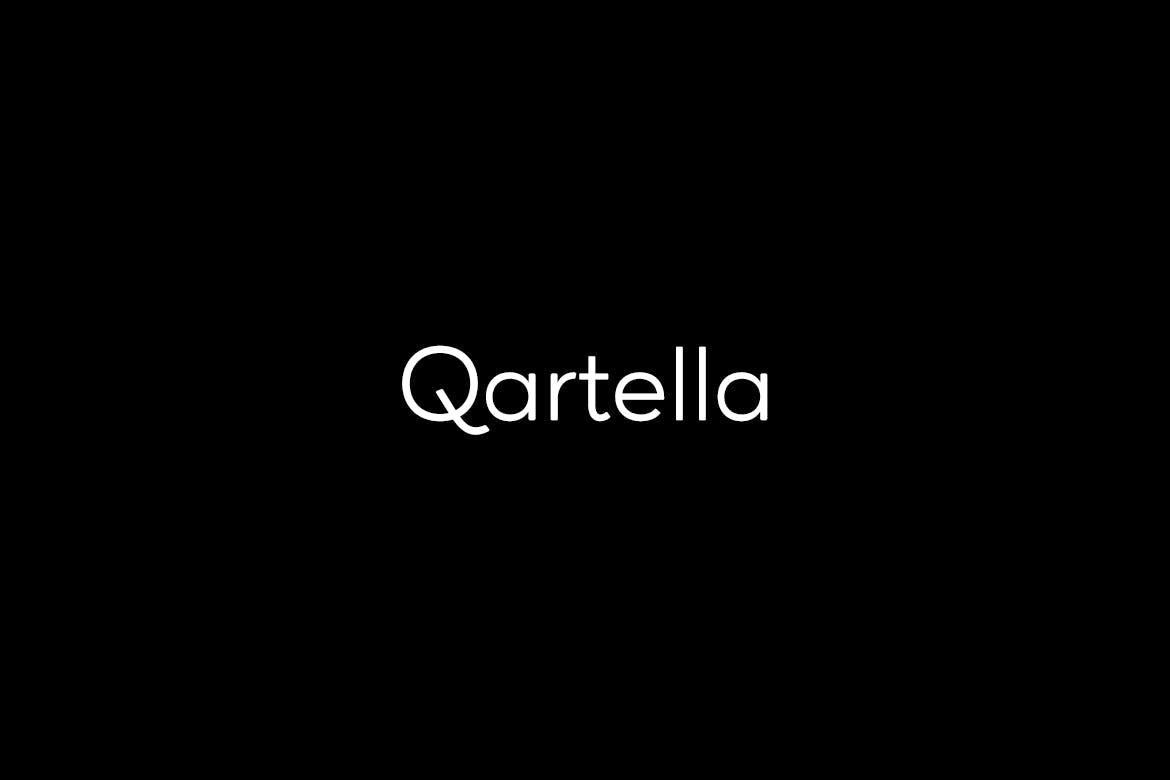
QARTELLA - Clean & Modern Sans-Serif Typeface
Perfect for branding, websites, UI/UX design, logos, editorial projects, and digital marketing materials.
The QARTELLA - Clean & Modern Sans-Serif Typeface excites designers with its sleek, minimalist style that effortlessly combines clarity and professionalism for a contemporary look.
The QARTELLA - Clean & Modern Sans-Serif Typeface Free Download is a versatile typeface designed to bring a fresh, clean aesthetic to your creative projects. Its geometric shapes and balanced proportions make it highly readable and visually appealing, whether used in headlines, body text, or user interfaces. Whether you’re crafting branding materials, websites, or digital ads, QARTELLA offers a polished, modern look.
One of the key strengths of QARTELLA - Clean & Modern Sans-Serif Typeface is its flexibility across various design mediums. It performs exceptionally well both in print and digital formats, adapting seamlessly to different sizes and resolutions.
In branding, QARTELLA conveys modernity, professionalism, and reliability. It pairs beautifully with minimalist layouts, neutral color palettes, and clean graphics, helping brands communicate a clear and trustworthy identity.
For digital projects, this typeface enhances website typography, mobile apps, social media graphics, and marketing campaigns with its crisp and contemporary style. Its clean lines ensure a user-friendly reading experience across devices.